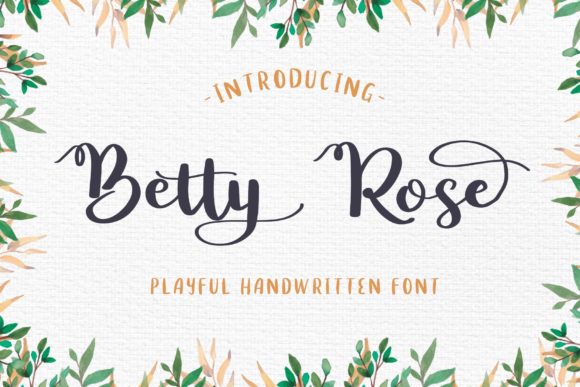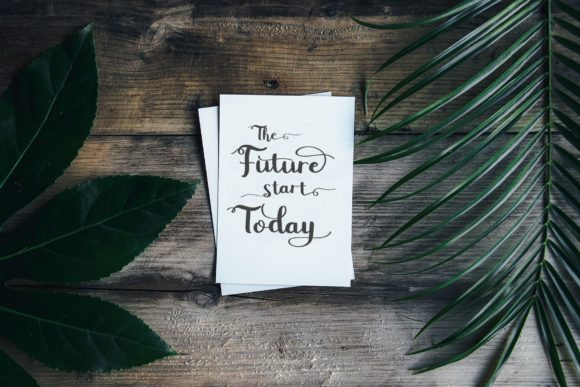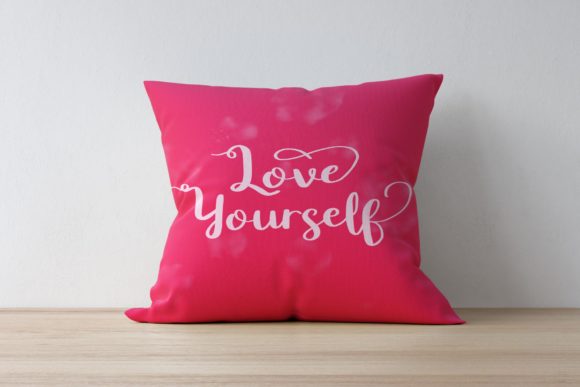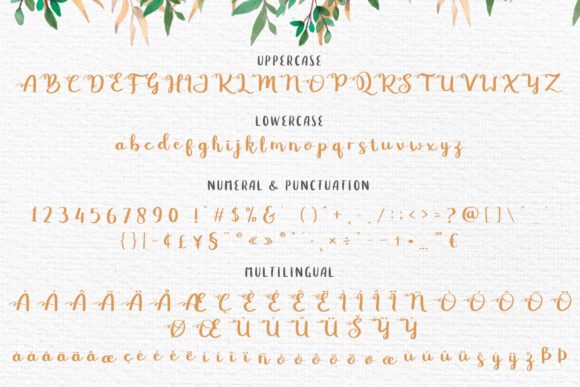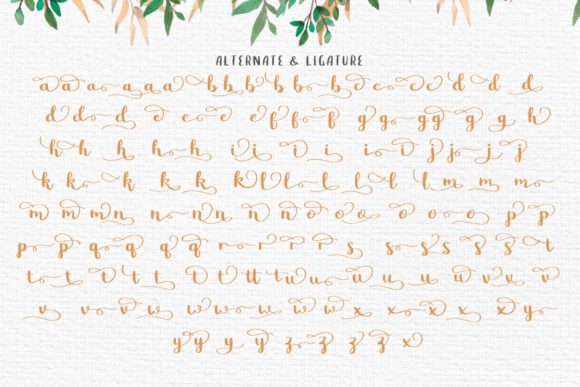
Betty Rose Font
About Betty Rose Font
The Betty Rose is a handwritten script font based on the expression of real handwriting. It lets you transform type into an exciting and beautiful piece of work. The irregular, hand-lettered look adds a real human touch to things and comes along with a lot of loving details.
The Betty Rose gives you possibility to build your text almost like handwriting with all the charming imperfections and variations that a real handwriting has.
It will work perfectly for fashion, e-commerce brands, trend blogs, wedding boutiques or any business that wants to appear upscale and chic.